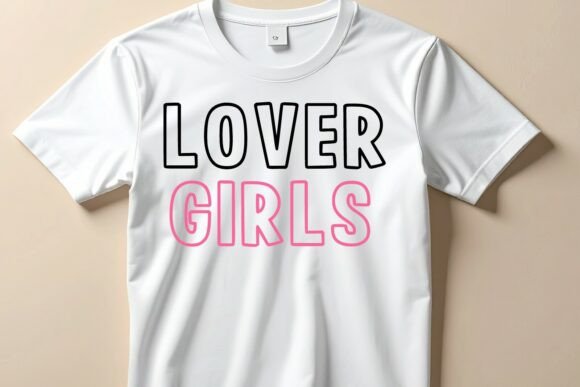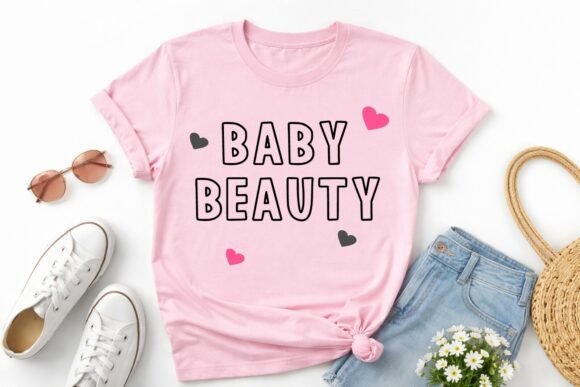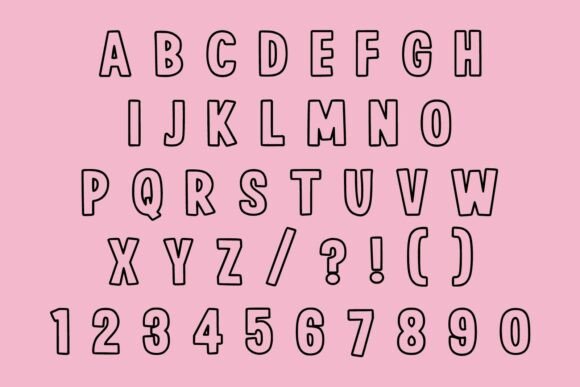
Cutes Honey Font: The Sweetest Addition to Your Design Projects
Are you looking for a font that can add a touch of sweetness and playfulness to your design projects? Look no further than Cutes Honey Font! This adorable font is perfect for designers and crafters who want to create cute and eye-catching typography that will capture the hearts of their audience.
What is Cutes Honey Font?
Cutes Honey Font is a sweet and playful outline display font that features soft, rounded bubble shapes with a charming and kawaii style. Its clean outline design gives it a light and friendly look, making it perfect for a wide range of design projects. Whether you’re working on a kids’ design, Valentine project, greeting card, invitation, poster, sticker, branding, social media graphic, or packaging, Cutes Honey Font is the perfect choice.
Key Features of Cutes Honey Font
- Soft and Rounded Bubble Shapes: Cutes Honey Font features soft and rounded bubble shapes that give it a sweet and playful look.
- Clean Outline Design: The font’s clean outline design gives it a light and friendly look that’s perfect for a wide range of design projects.
- Kawaii Style: Cutes Honey Font has a charming and kawaii style that’s sure to capture the hearts of your audience.
- Adorable and Cheerful Personality: This font has an adorable and cheerful personality that adds a warm, fun, and lovable touch to any creative project.
Cutes Honey Font is ideal for a wide range of design projects, including:
- Kids’ Designs: The font’s playful and sweet design makes it perfect for kids’ designs, such as children’s books, educational materials, and kids’ clothing.
- Valentine Projects: Cutes Honey Font is perfect for Valentine projects, such as Valentine cards, posters, and social media graphics.
- Greeting Cards and Invitations: The font’s friendly and approachable design makes it perfect for greeting cards and invitations.
- Posters and Stickers: Cutes Honey Font is great for posters and stickers, adding a playful and eye-catching touch to any design.
- Branding and Packaging: The font’s adorable and cheerful personality makes it perfect for branding and packaging design, helping to create a fun and lovable brand image.
- Social Media Graphics: Cutes Honey Font is perfect for social media graphics, adding a playful and engaging touch to any social media post.
Why Choose Cutes Honey Font?
There are many reasons why you should choose Cutes Honey Font for your design projects. Here are just a few:
- Unique and Playful Design: Cutes Honey Font has a unique and playful design that’s sure to capture the hearts of your audience.
- Easy to Read: The font’s clean outline design makes it easy to read, even at small sizes.
- Versatile: Cutes Honey Font is versatile and can be used for a wide range of design projects.
- Adorable and Cheerful Personality: This font has an adorable and cheerful personality that adds a warm, fun, and lovable touch to any creative project.
Cutes Honey Font is a sweet and playful outline display font that’s perfect for designers and crafters who want to create cute and eye-catching typography. With its soft and rounded bubble shapes, clean outline design, and charming kawaii style, this font is sure to capture the hearts of your audience. Whether you’re working on a kids’ design, Valentine project, greeting card, invitation, poster, sticker, branding, social media graphic, or packaging, Cutes Honey Font is the perfect choice. So why wait? Download Cutes Honey Font today and add a touch of sweetness and playfulness to your design projects!